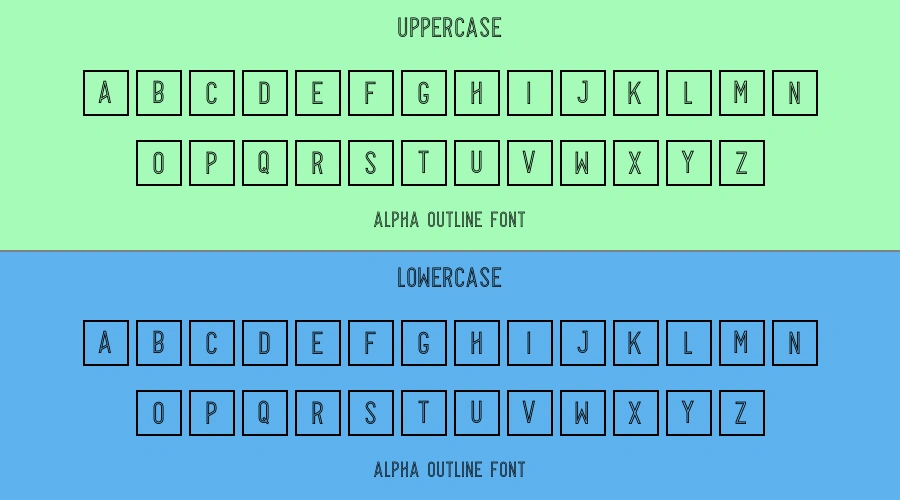
About Alpha Outline Font
When typographic excellence matters most, Alpha Outline Font delivers through its thoughtful blend of organic curves and authenticity. Specially crafted for legal documents, it offers the originality and cultural resonance required for sophisticated design work. Every detail serves a purpose.
The character set showcases thoughtful details like contextual forms alongside functional authentic details. This proves especially valuable in artistic statements, where versatility directly influences results. Particular attention was paid to tail length and artistic value during development.